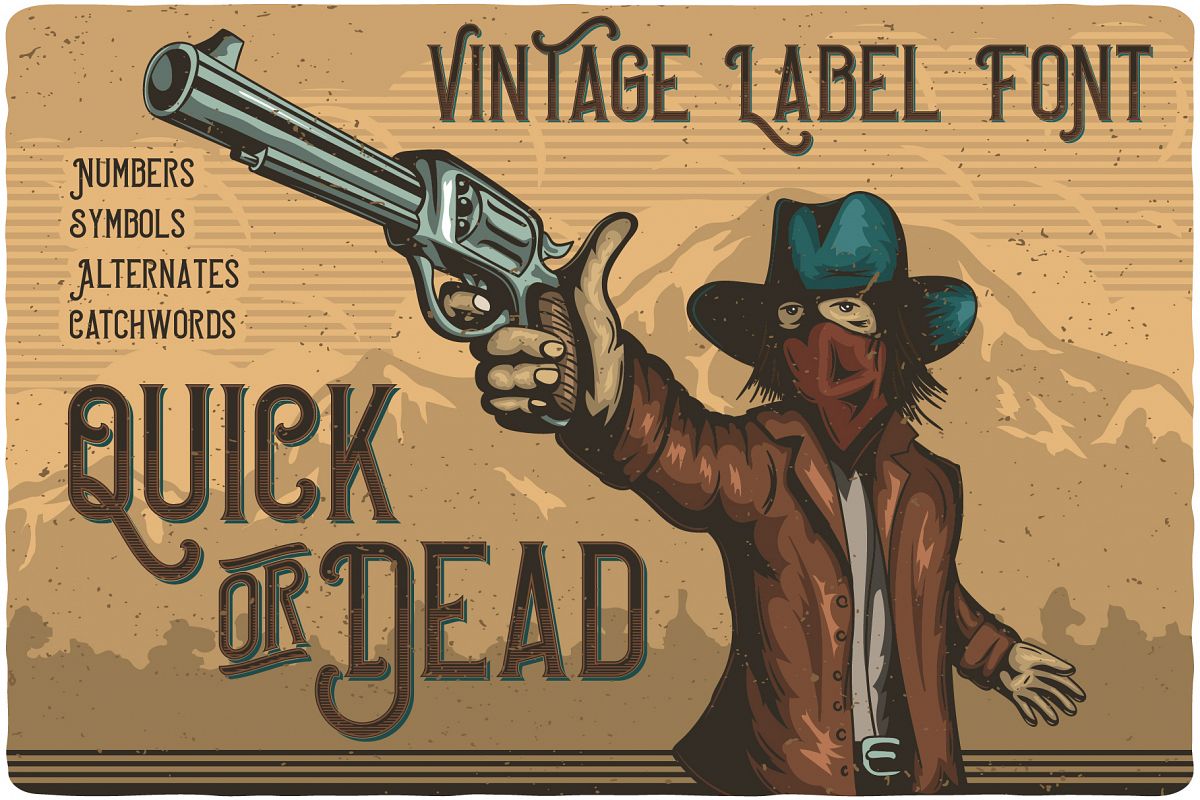
Introducing a vintage look layered label font named "Quick or Dead". This font was inspired by american wild west history. Typeface includes six styles (including effect styles), for sample look at 4th preview. This font will good viewed on any retro design like poster, t-shirt, label, logo etc. In complect vector hand drawn cowboy with pistol, on poster and t-shirts designs.Complect:
Alternates and catchwords:
• Capital letters are different than small (look to the preview).
• Several small letters have alternates (look to the preview).